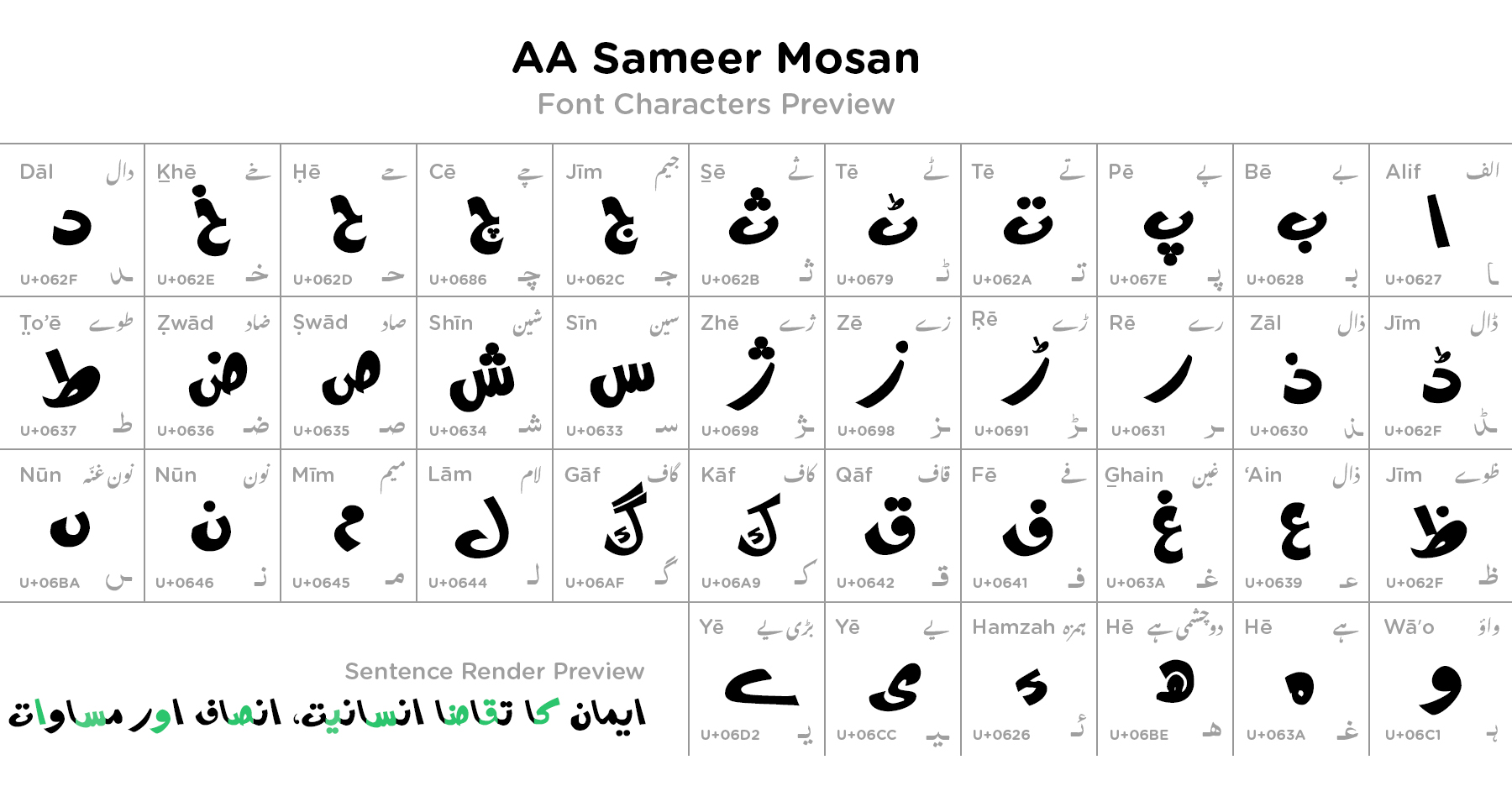
AA Sameer Mosan is a bold freestyle Arabic font family that only come in regular font weight. The font has expressive and less rigid letterforms that stray from strict Naskh conventions. With uneven curves, varying stroke widths, and inconsistent shapes adding a dynamic and unusual feel. Despite being thicker than some fonts, the strokes are not uniformly bold, with noticeable variations within each letter. Irregularity, with uneven curves, inconsistent shapes, and varying stroke widths, amplifies the freestyle nature and creates a less formal, more expressive appearance. Some letters have rounded elements while others are angular, preventing the font from being strictly “rounded” overall. Moreover, it has a large glyph count of 431 and an average character set of 219. Its intricate design makes it visually appealing but also less practical. It cannot be used for longer text block; restricting its usage to branding, book cover, and other design projects.